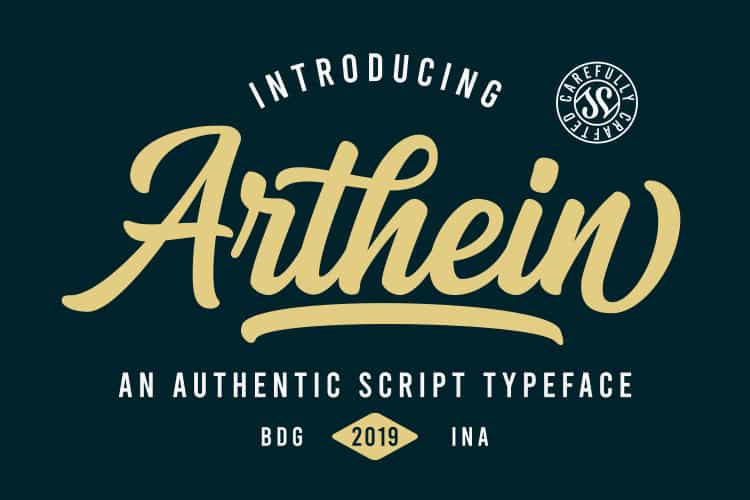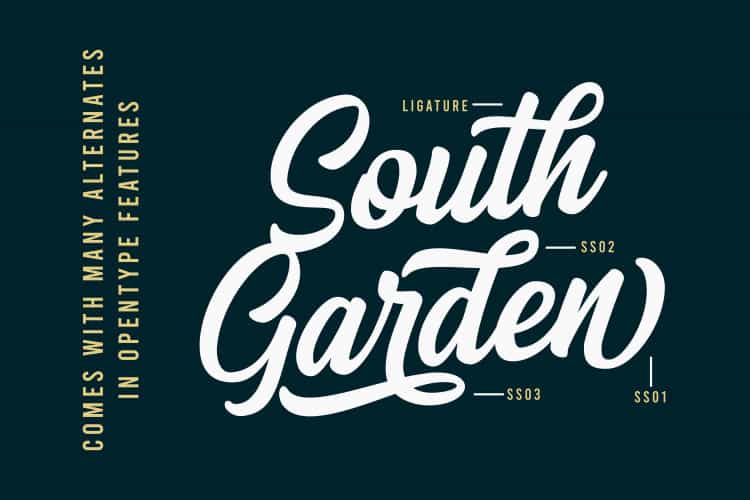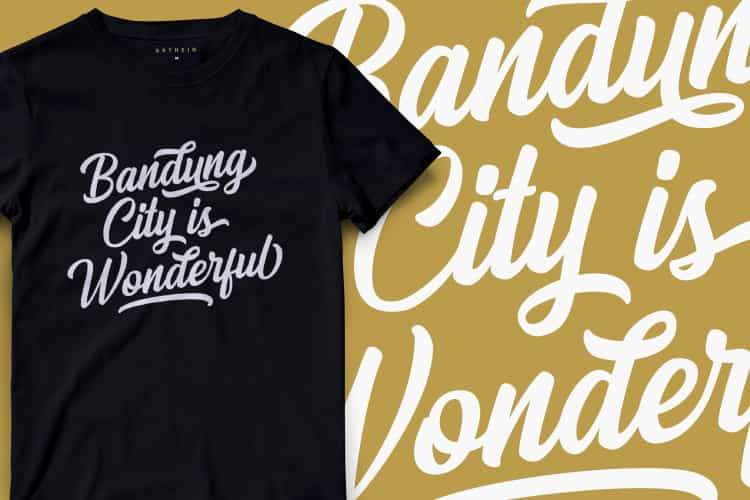
Arthein Font is a simple and casual bold script typeface that is suitable for special moments or projects and it goes well with many styles of font. Sibelumpagi Studio is honored to present Arthein Font – the font that is a real hand-written bold script.